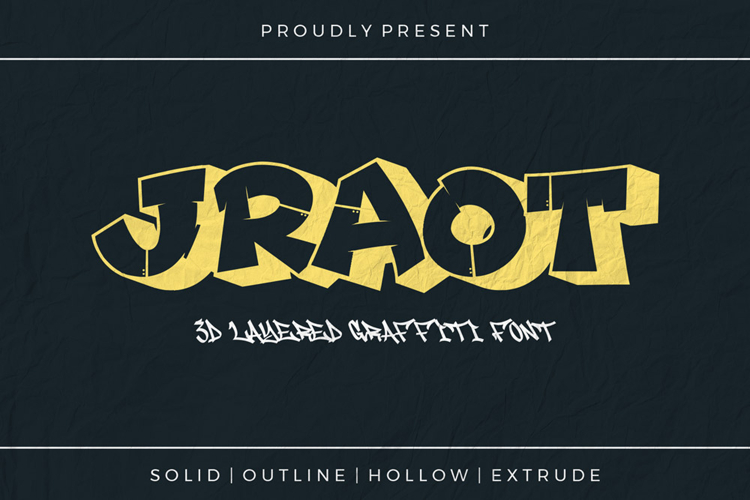
Jraot 3D Layered Graffiti Font
Jraot is a 3D layered graffiti font that takes your visuals to a whole new level. Designed with uppercase and lowercase characters, this font gives you powerful dimensional effects with a graffiti attitude. Whether you're creating posters, digital artwork, album covers, or splash screens, Jraot delivers boldness, depth, and style in one unique package.
The Ultimate 3D Graffiti Font for Dynamic Projects If you’re searching for a 3D graffiti font that explodes with energy, Jraot is it. With three coordinated layers—base, outline, and extrude—you can build fully layered titles that stand out on any platform. From urban murals to vibrant digital covers, this layered graffiti display font adds visual drama and creative control to your design process.
Supports Multilingual Characters for Global Reach Jraot supports multilingual characters, ensuring your designs speak clearly across multiple languages. From English to Spanish, French, and more, this graffiti-style 3D font keeps your global communication loud and clear, without losing its street-smart edge.
Key Features
- � Uppercase & Lowercase Characters
- � 3D Layered Style with Base, Outline & Extrude
- � Multilingual Support for international use
- � Ideal for posters, album art, games, and event promotions
- � Perfect for bold, expressive design with dimensional flair
Why Designers Love Jraot Designers choose Jraot font when they need more than just letters—they need depth, movement, and attitude. The layered 3D style gives full creative freedom, whether you're working on graffiti art, animated titles, or edgy branding. Its bold shapes and graffiti roots make Jraot a must-have for projects that demand attention.